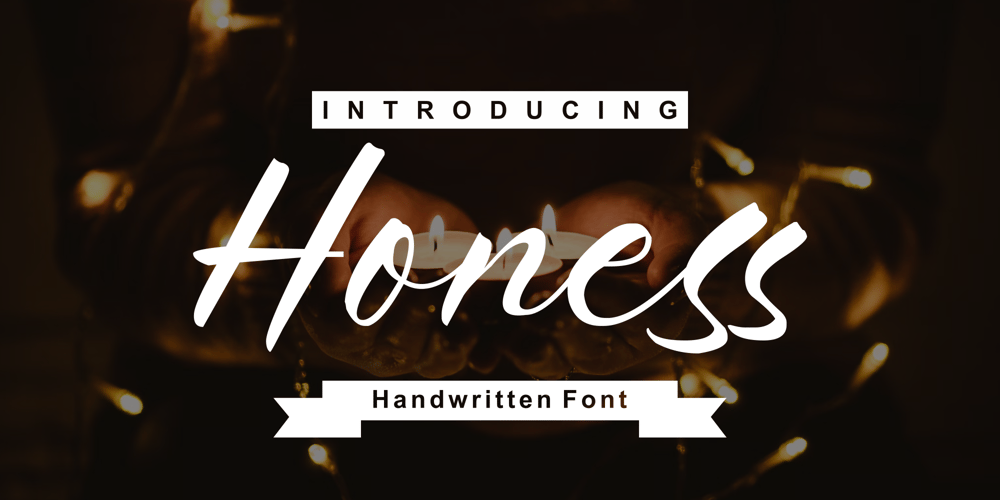
Honess Font Family was designed by Zamjump and published by Zamjump. Honess contains 1 styles and family package options. Honess is a luxurious handwritten script font with a thick classic feel this font is perfect for craft artists to elevate their work into beautiful masterpieces. Honess is also great for graphic designers looking for a cute font for their work. includes :- uppercase, – lowercase, – standard punctuation, – standard ligature, – bigining swash. – ending swash – numbers.- multi lingualto use a character with a line prefix is quite easy, that is, simply by typing an unterscore is added to the desired character, for example (_a) then the character a will have a line at the beginning, as well as a ending swash, type the character then followed by an underscore (a_).